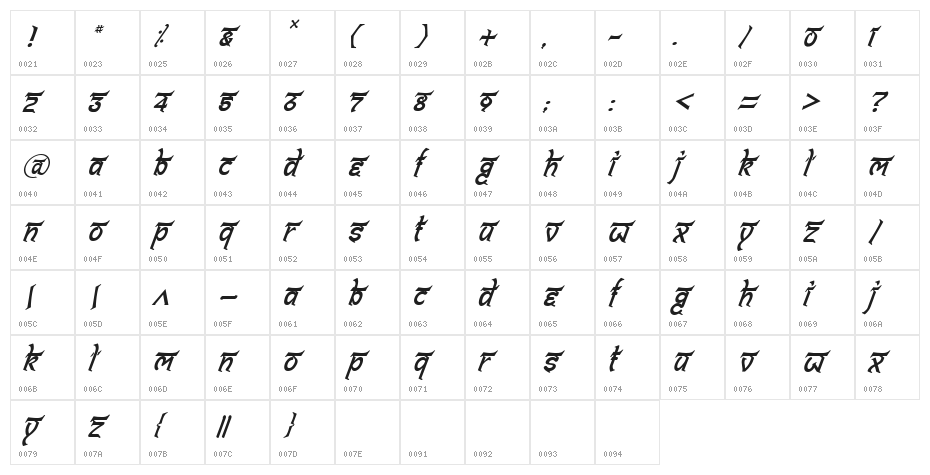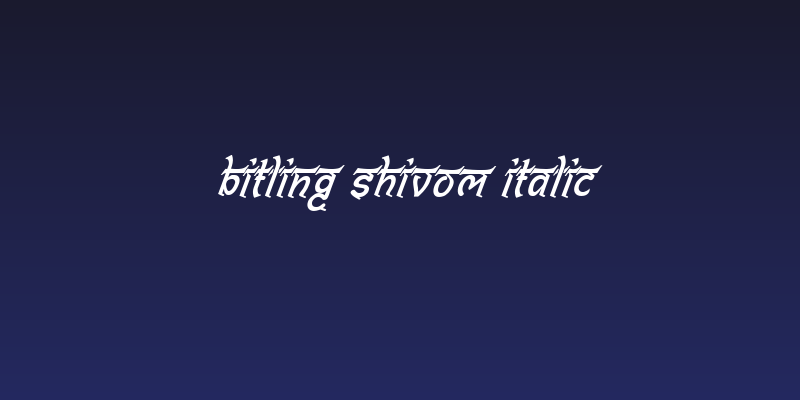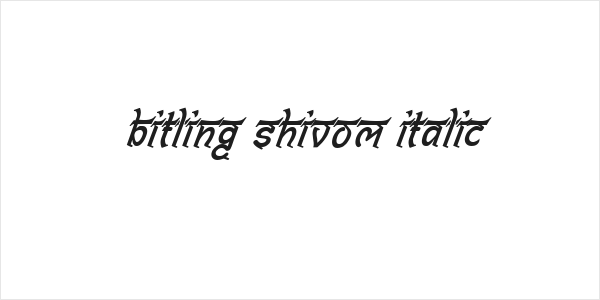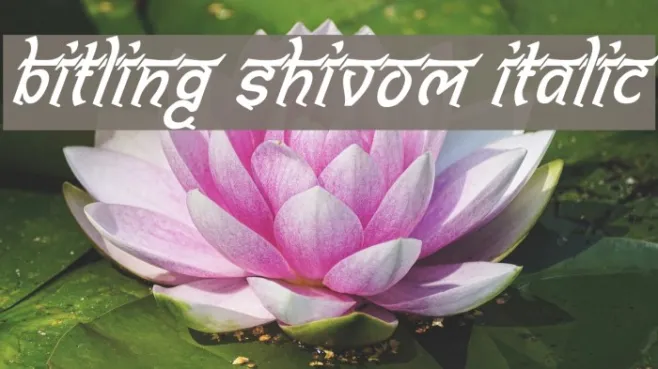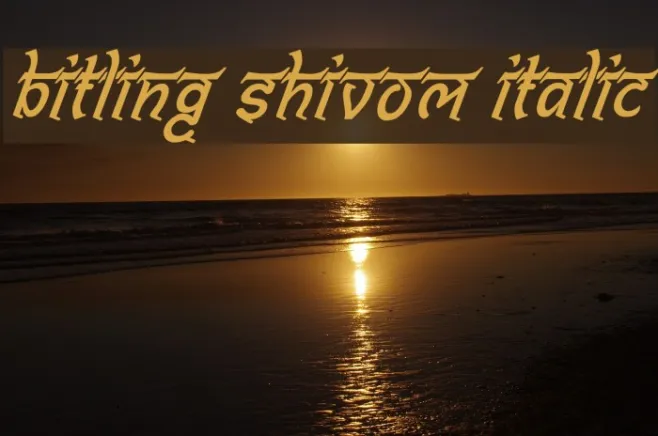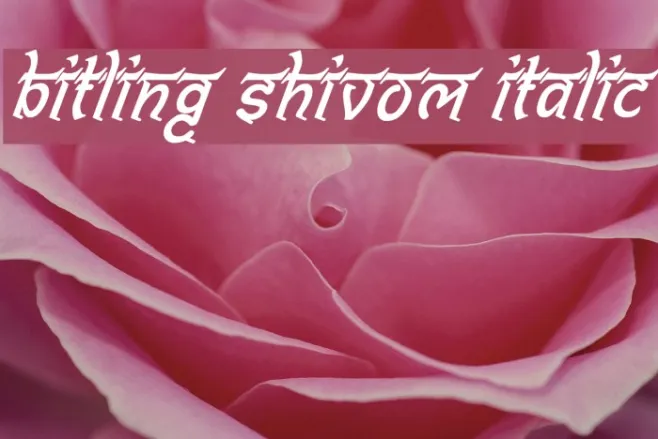
Bitling shivom Italic Font
Bitling shivom Italic Description
This font features a dynamic and expressive style, characterized by its sharp, angular strokes and italicized form. The letters have a distinct slant, adding a sense of movement and energy. The uppercase and lowercase letters maintain a consistent style, with unique flourishes and pointed serifs that give it a dramatic flair. The numerals and special characters are crafted with the same attention to detail, ensuring a cohesive look across all glyphs. This font's bold presence makes it suitable for eye-catching designs.
| Proposed Projects | Ideal for branding, posters, and headlines where a bold, expressive style is desired. |